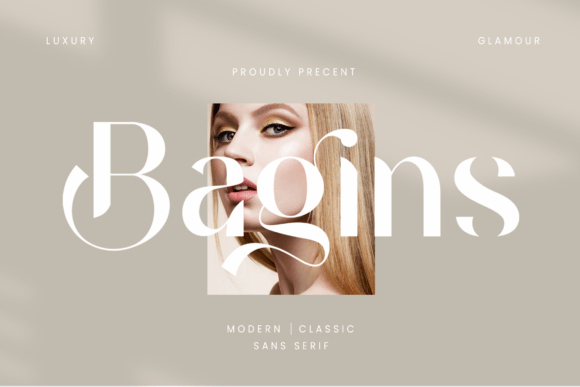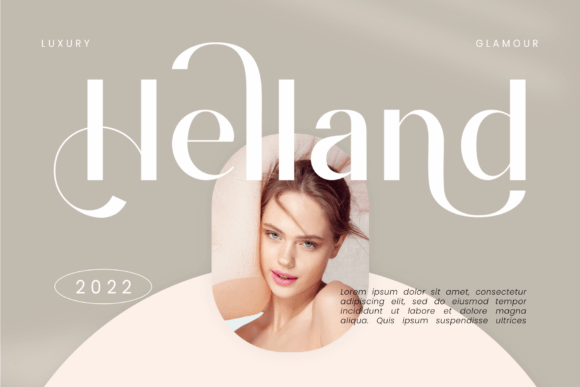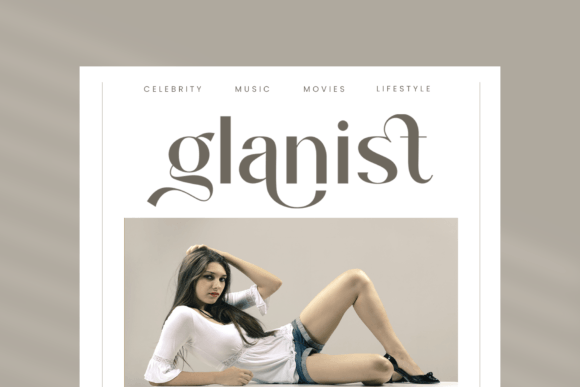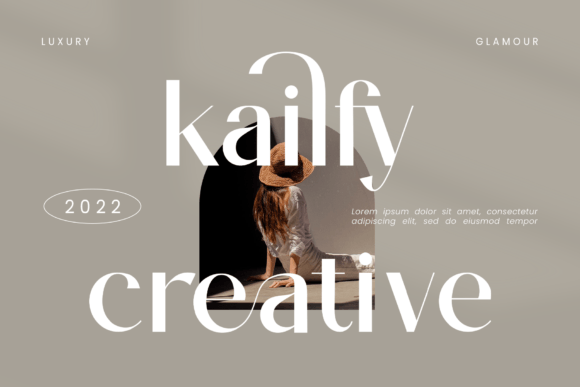
Bagins Font: Elegant Sans Serif for Modern Logo Design & Branding
About the Bagins Font
Explore the possibilities with Bagins Font, a font that offers both beauty and functionality. Bagins is a balanced, smooth, elegant, and stylish sans-serif font. The font exudes sophistication and elegance. Its stylish alternations and ligatures make this font the perfect partner for any project. It is also PUA encoded which means you can access all of the glyphs and swashes with ease!
Bagins excels in applications requiring a touch of sophisticated elegance, such as logos, headlines, short-form text on packaging or invitations, and even short-form editorials. Its ligatures add a unique flair to branding materials. However, its elegance might not translate well to large blocks of body text or UI elements, where readability is paramount. Avoid using it for lengthy paragraphs or interfaces requiring high legibility.
For effective pairings, consider complementing Bagins’ refined nature. A classic serif like Garamond or a geometric sans-serif like Futura would provide a strong contrast and visual balance. Alternatively, a script font with a similar level of sophistication, but less formal, could add a touch of personality. Avoid pairing it with overly playful or heavily distressed fonts which would clash with its inherent elegance.
Bagins projects an overall mood of refined elegance and subtle confidence. It is well-suited for brands focusing on luxury goods, high-end services, or sophisticated artistic endeavors. Its versatility allows for elegant yet modern applications in various branding or design projects, so long as readability remains a priority for the larger text blocks.
Bagins Font Usage Examples
Bagins Font Example